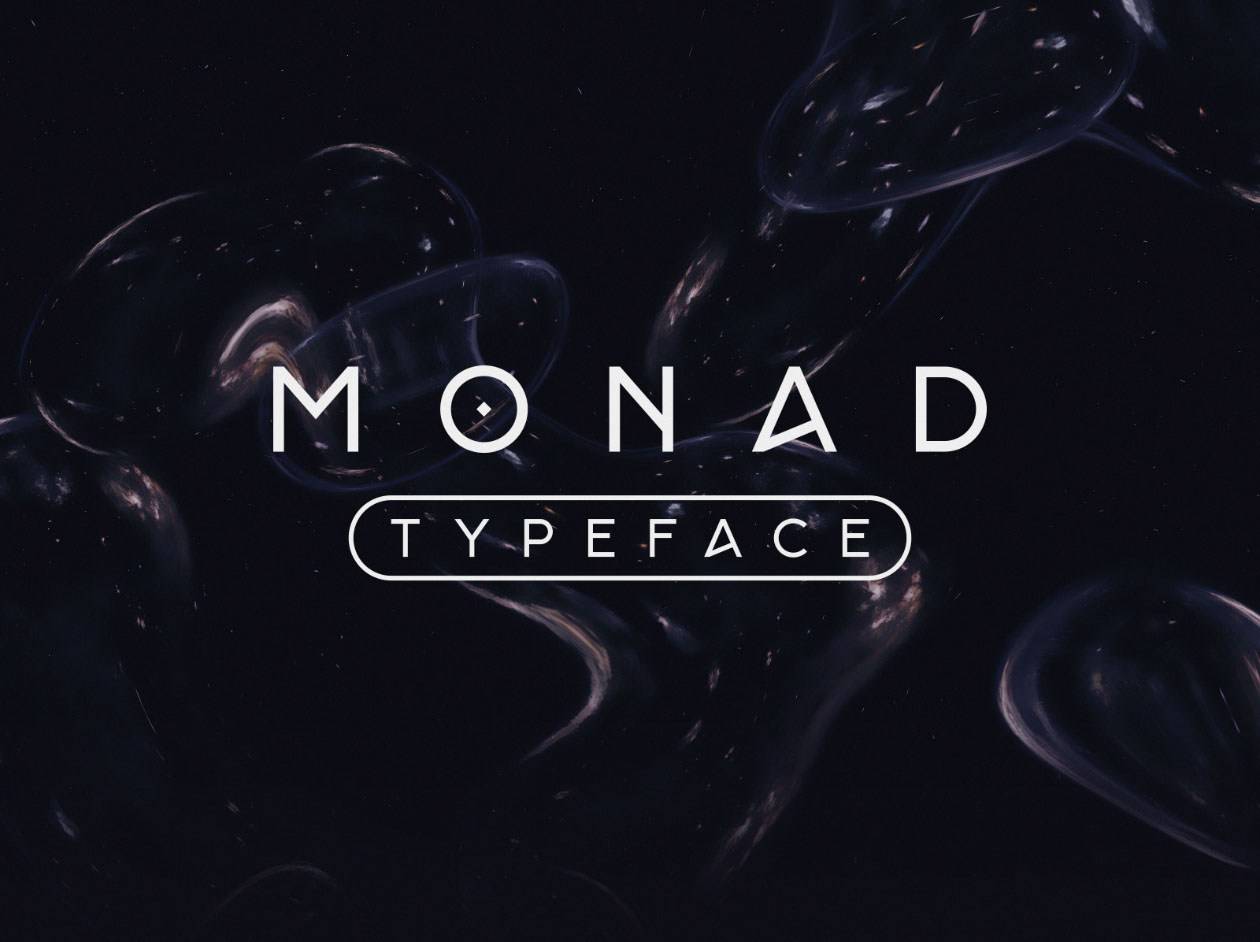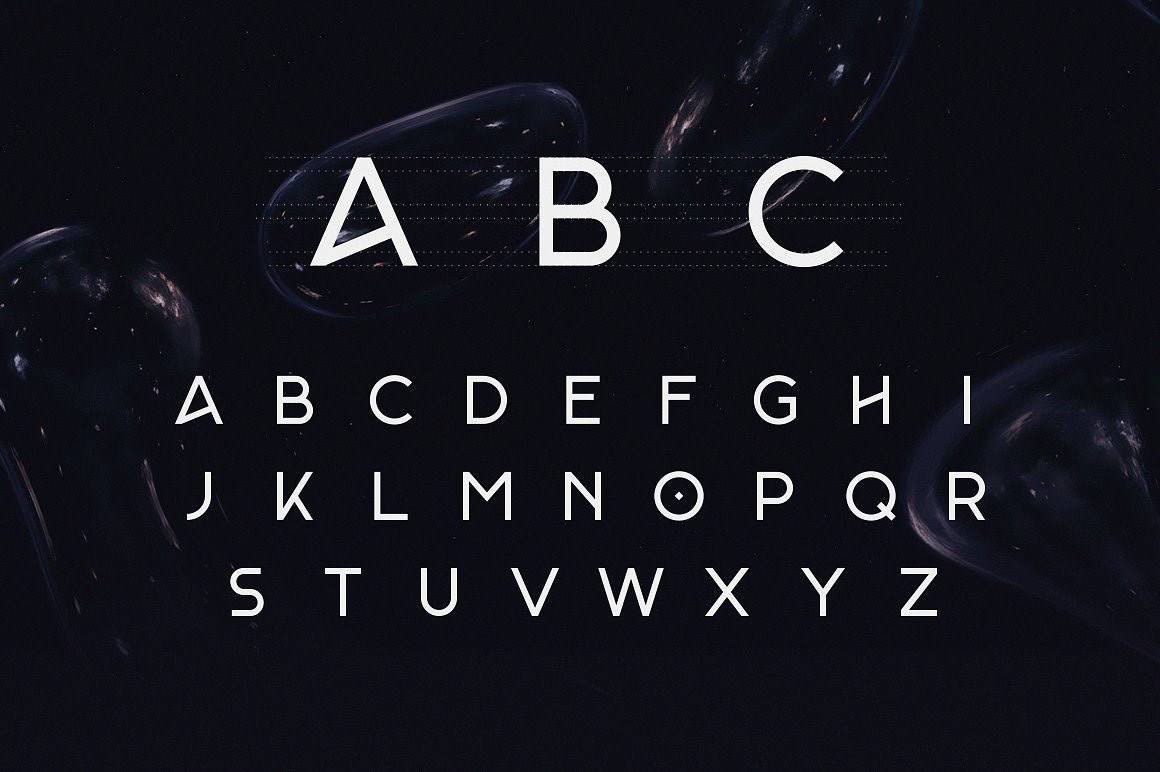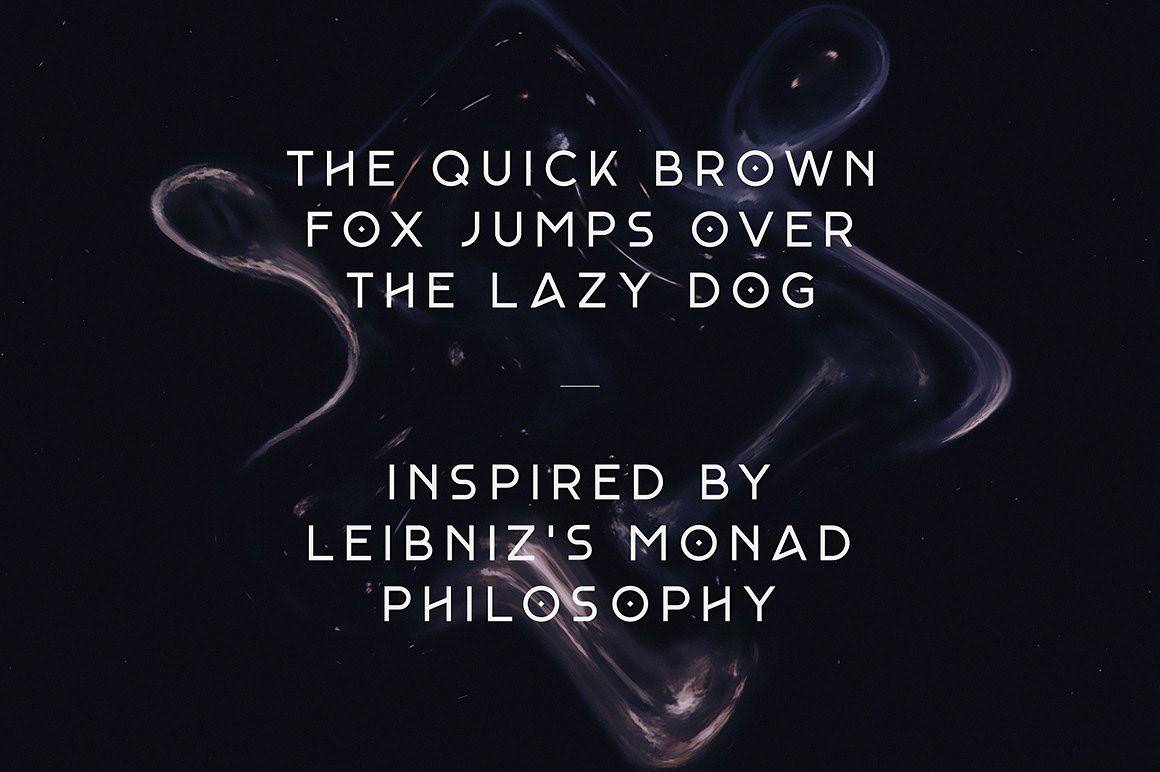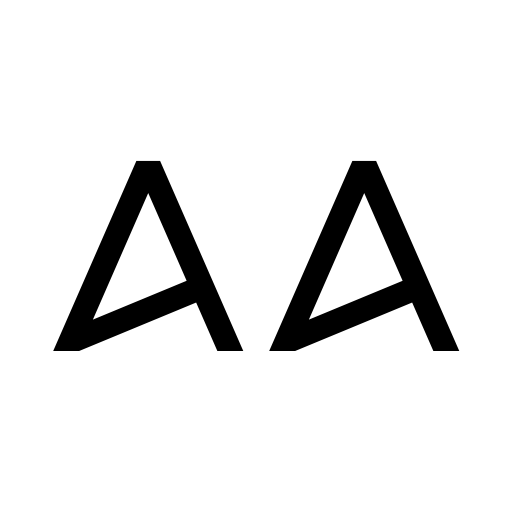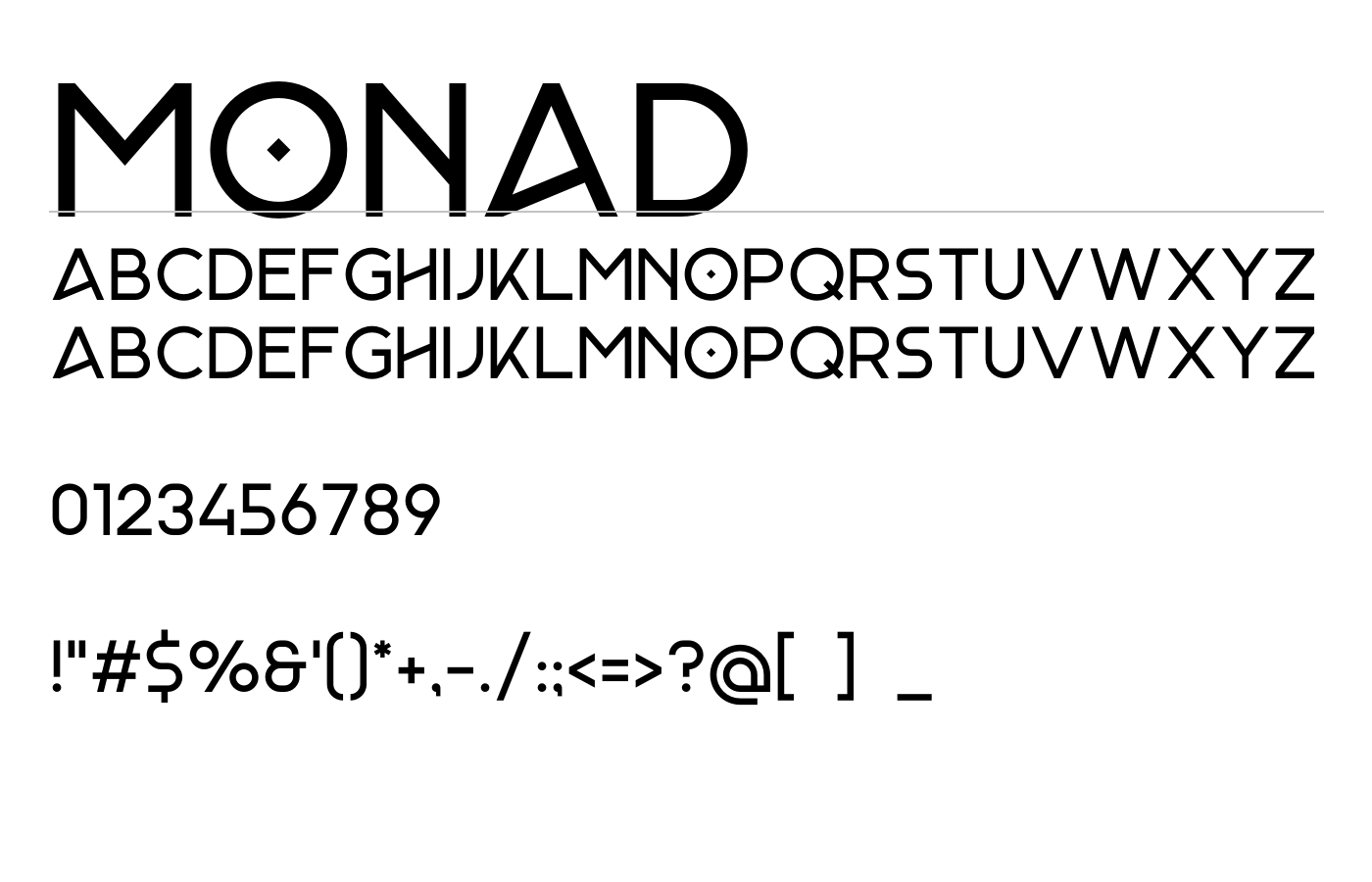
Monad Display is a sleek, modern sans serif typeface with a geometric and slightly condensed structure, featuring clean lines and a high x-height for strong legibility. Its unique letterforms, such as the stylized diagonal strokes and distinct circular shapes with diamond centers, give it a contemporary, tech-inspired personality that works well for branding, headlines, and editorial designs seeking a modern, sophisticated look. This font's clarity and sharpness make it ideal for digital and print projects that want to convey innovation and elegance.
Monad Display Typeface
About Monad Display Typeface
| Font family | Monad Display Typeface |
| Release date | 2017-07-06 |
| Designer | Yasin Yalcin |